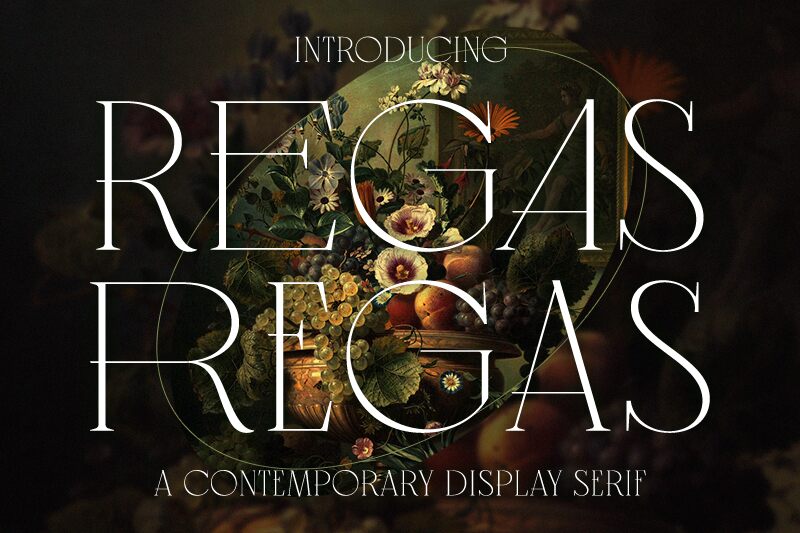
Regas, a captivating contemporary serif font by Kulokale Studio, exudes elegance and sophistication. With its extra-light weight, it delicately balances modernity and tradition. Regas is the perfect choice for projects that demand a refined touch, such as high-end fashion magazines, luxurious branding materials, or wedding invitations. Its graceful curves and sharp serifs elevate any design to new heights of sophistication. Let Regas be your go-to font for creating a lasting impression with its timeless style and versatile appeal.
Kulokale Studio
Regas
M Arif Dwi Prasetyo & Eko Nurcahyo